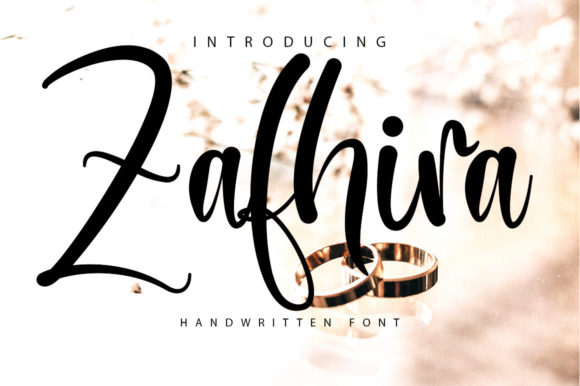
Zafhira Script Font
About Zafhira Script Font
Zafhira Script is an elegant handwritten font, that flows with quality and is great for your projects. This versatile script font has a wide spectrum of applications ranging from greeting cards to headlines or logos.